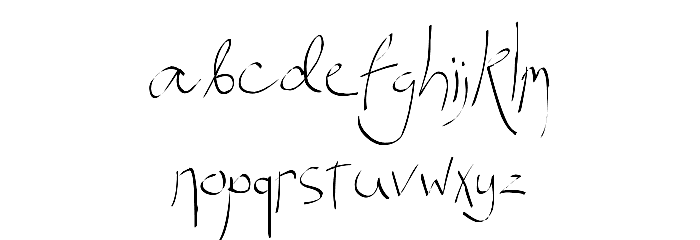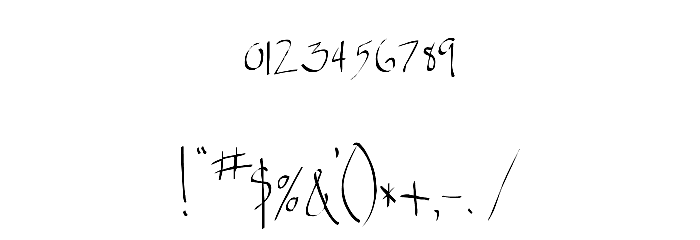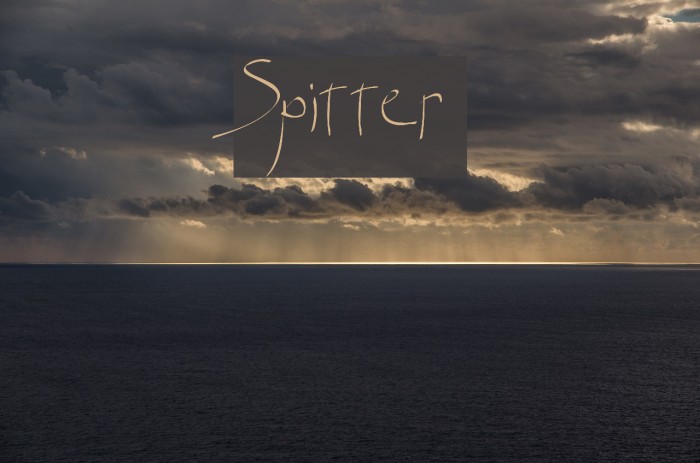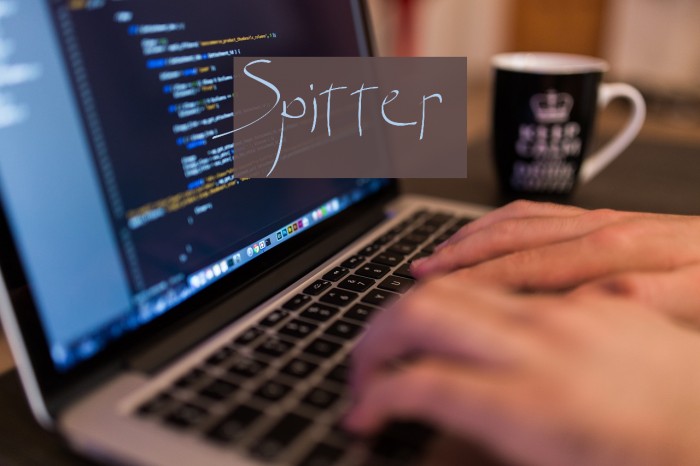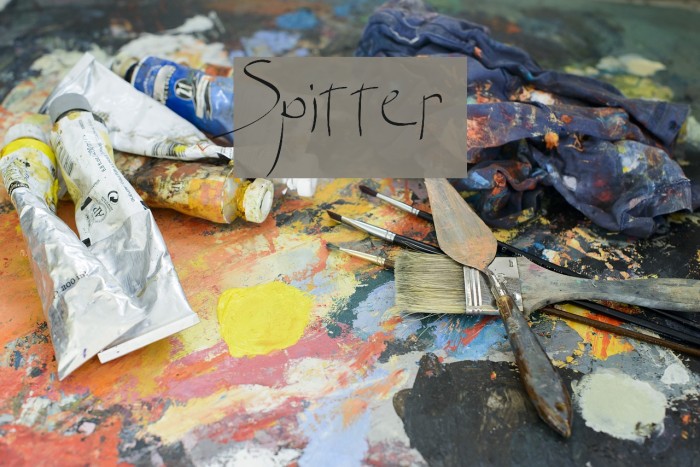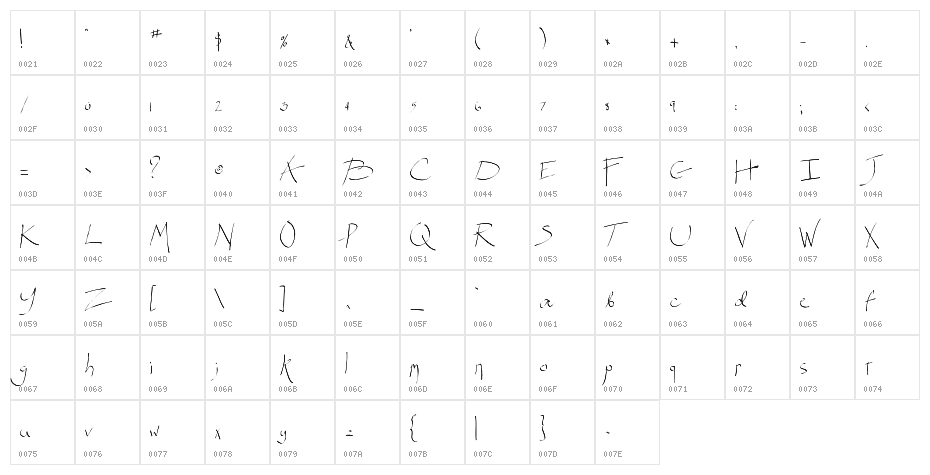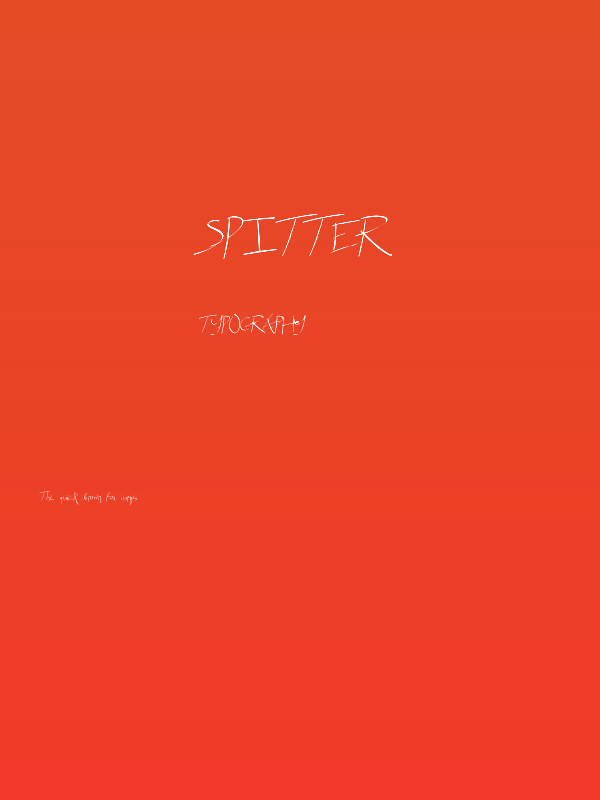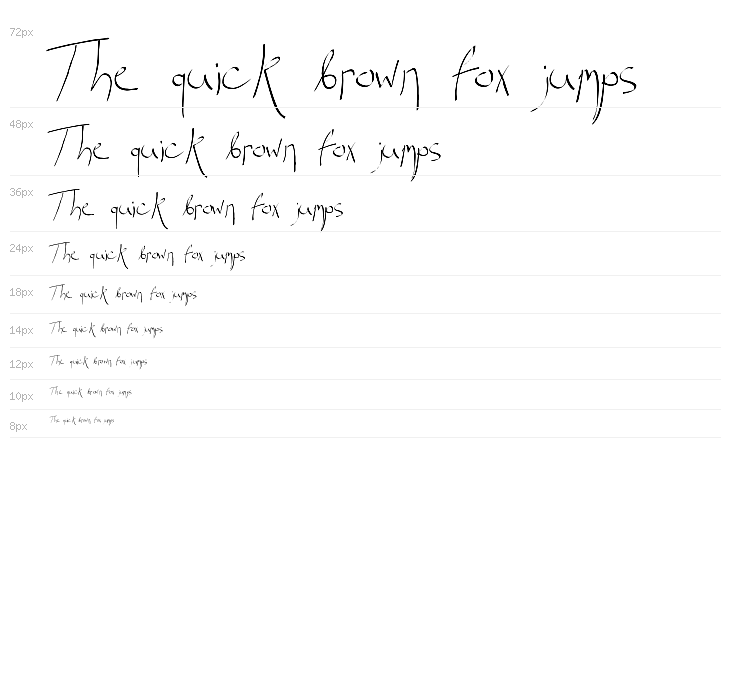
Spitter Font
This font features a unique, hand-drawn style with an artistic flair. The uppercase letters are tall and slender, with a slightly irregular stroke that adds a whimsical touch. The lowercase letters maintain this playful aesthetic, with some characters having exaggerated loops and curves. The numbers are consistent with the overall style, offering a cohesive look. Special characters are creatively integrated, maintaining the font's distinctive personality. The overall appearance is both casual and sophisticated, making it suitable for creative projects.
A whimsical, hand-drawn font with artistic flair and playful curves.
- Proposed Projects: Ideal for greeting cards, invitations, artistic posters, and branding that requires a personal touch.
- Use Case: Logos, Headlines, Artistic projects